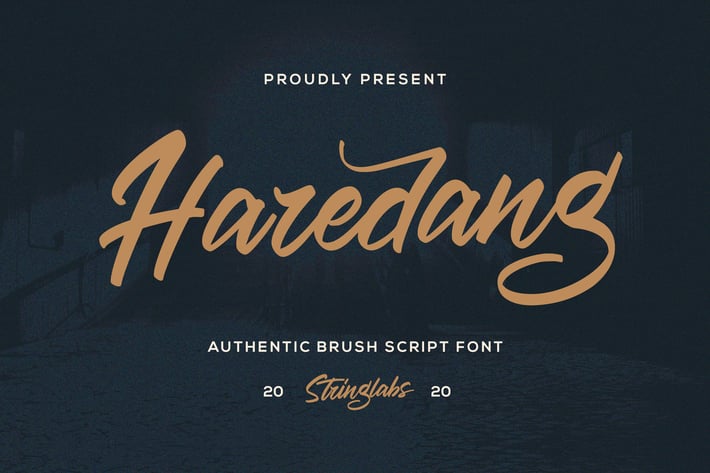
Haredang - Bold Script Font
Introducing Haredang - Bold Script Font
Haredang is inspired by classic typography and brings its own unique style to any design project. This amazing handwritten font is perfect for bold script font lovers, and itβs also perfect for brands such as: barbershop, motorcycle club, clothing, logo brand, coffee shop, shoe brands, and much more.
- Stylistic Alternates
Haredang is inspired by classic typography and brings its own unique style to any design project. This amazing handwritten font is perfect for bold script font lovers, and itβs also perfect for brands such as: barbershop, motorcycle club, clothing, logo brand, coffee shop, shoe brands, and much more.
- Stylistic Alternates